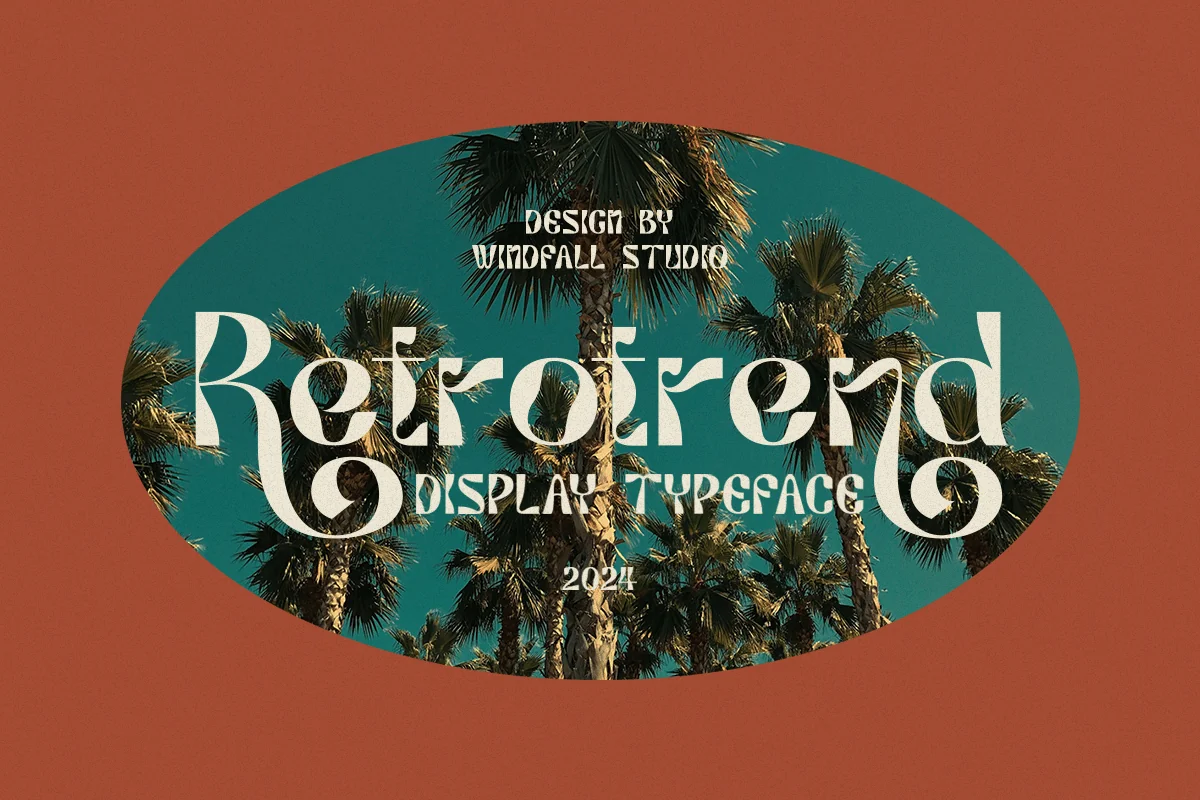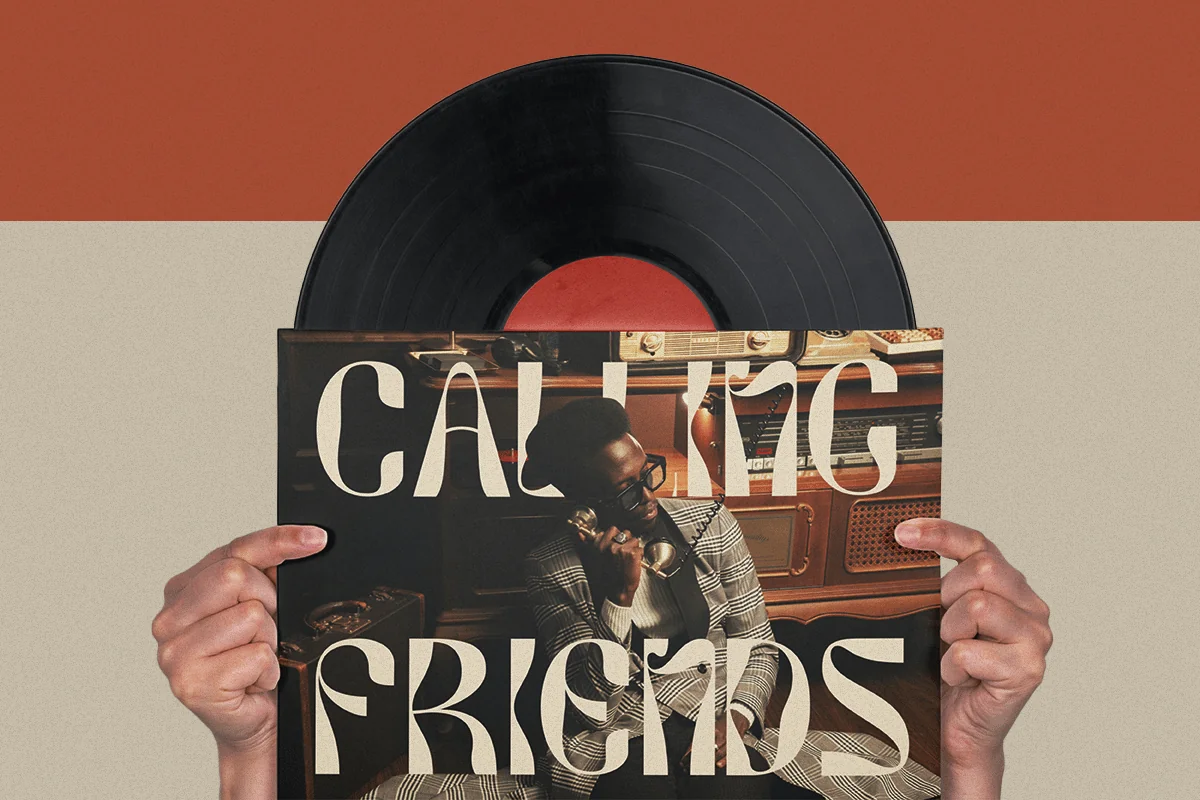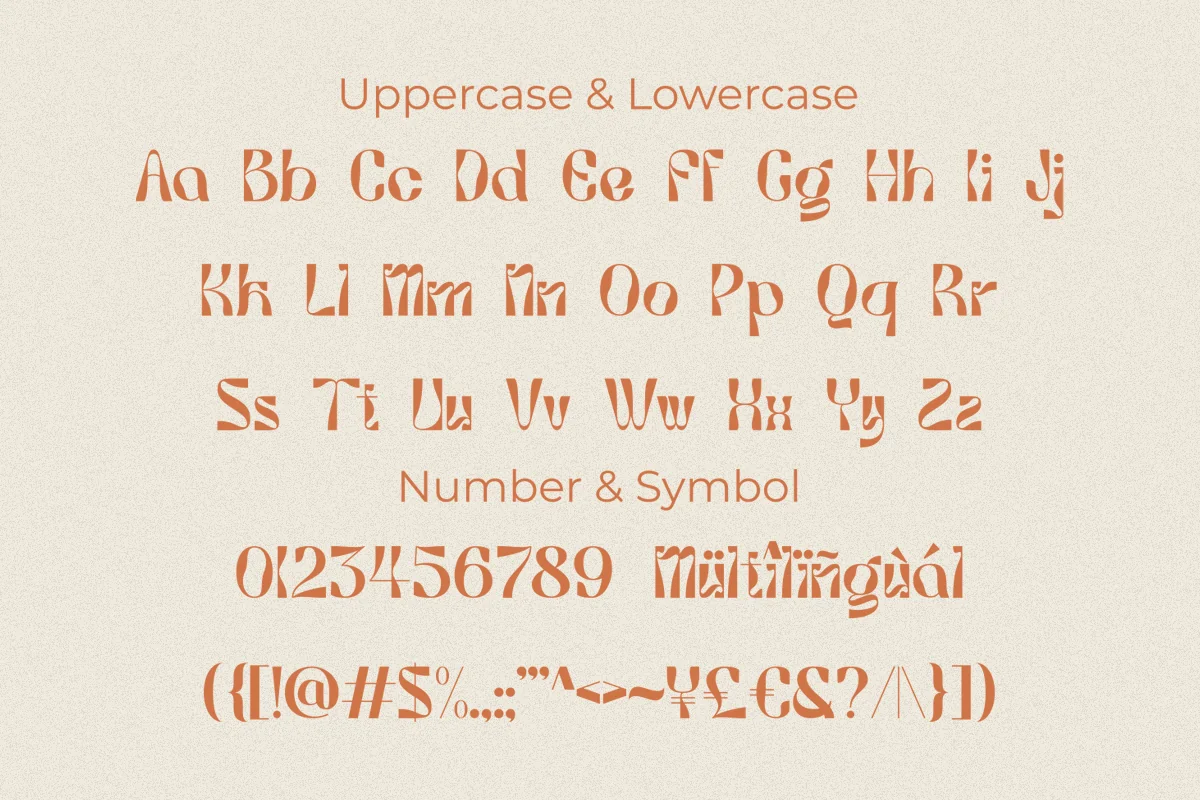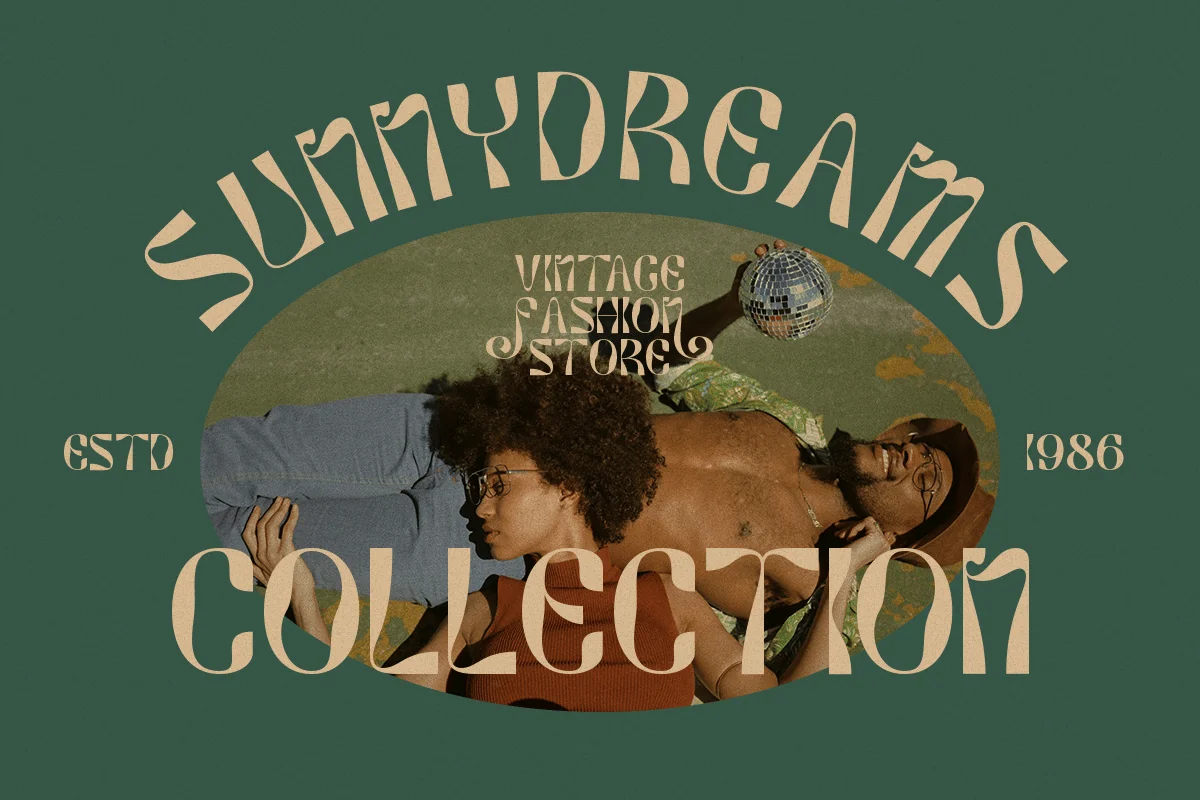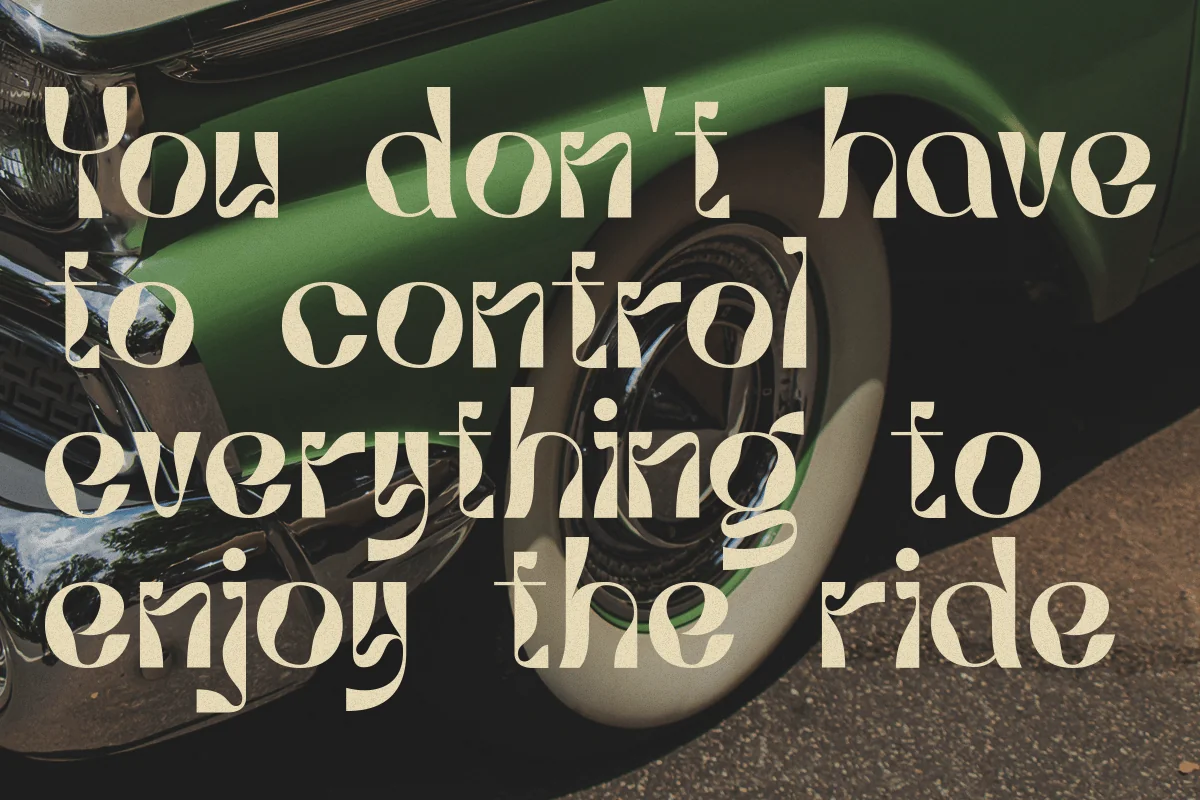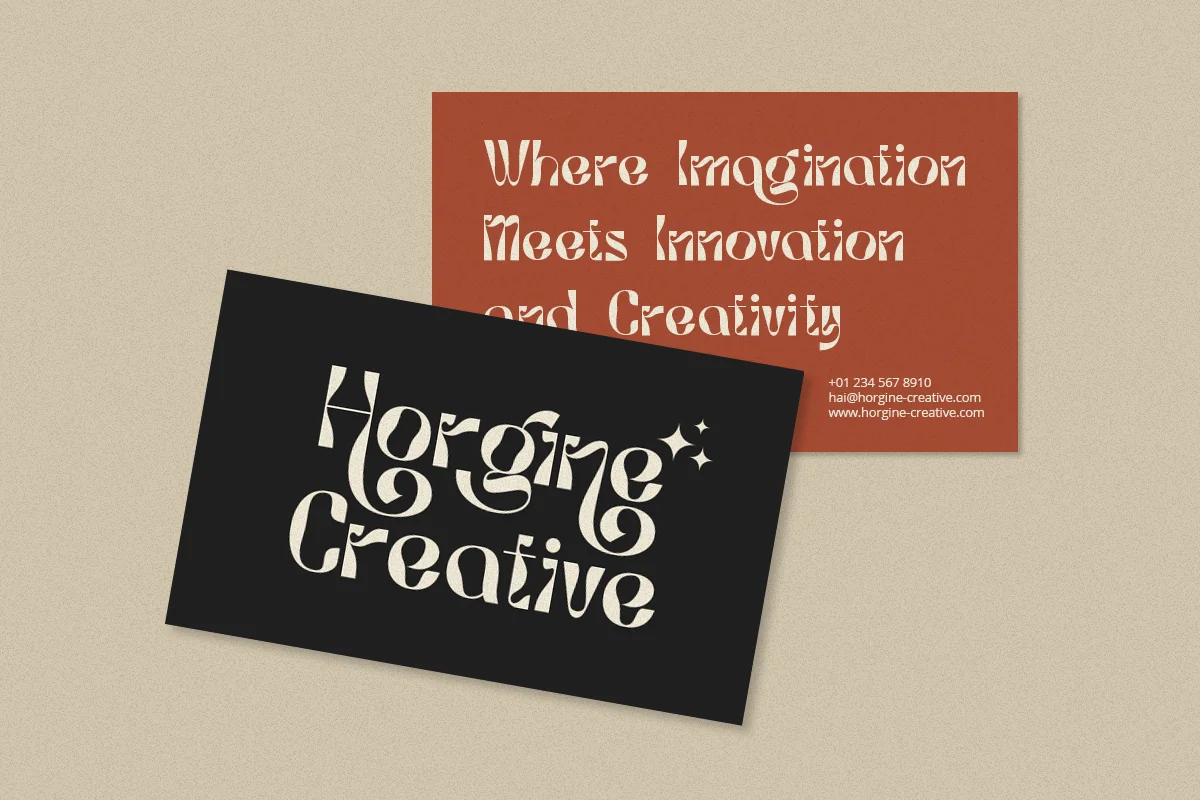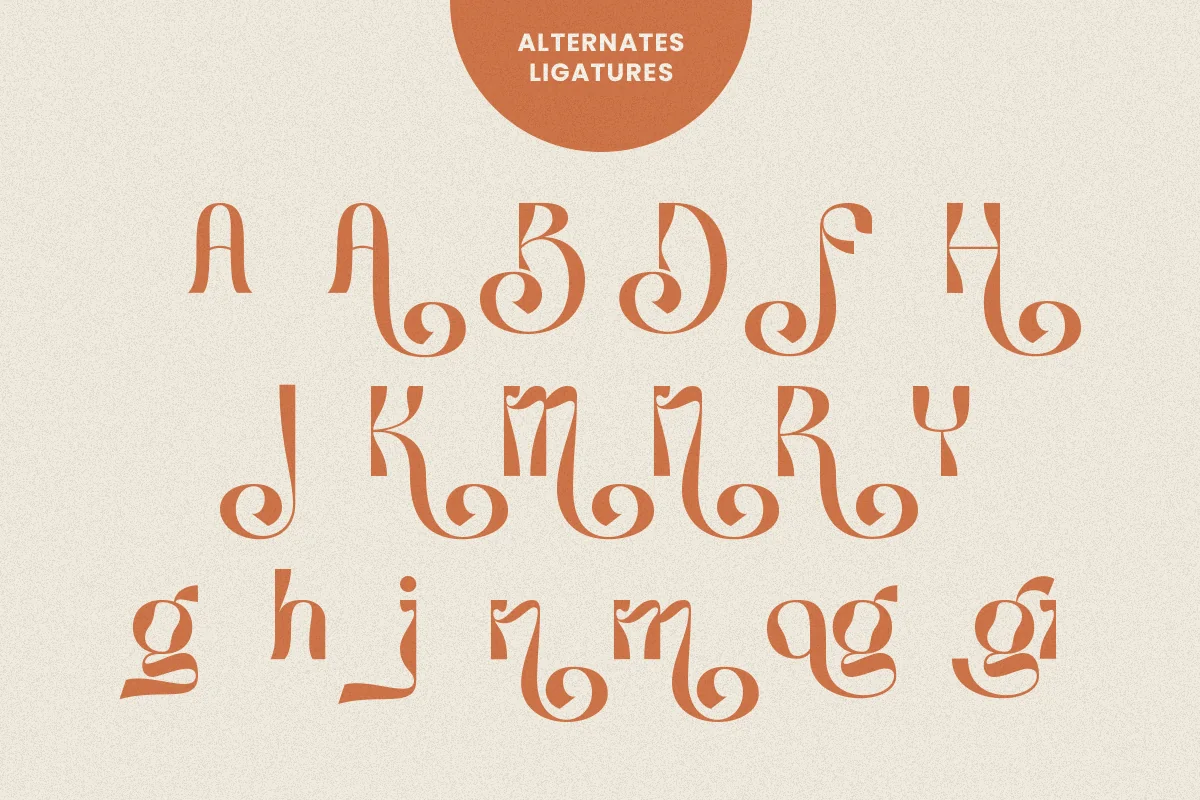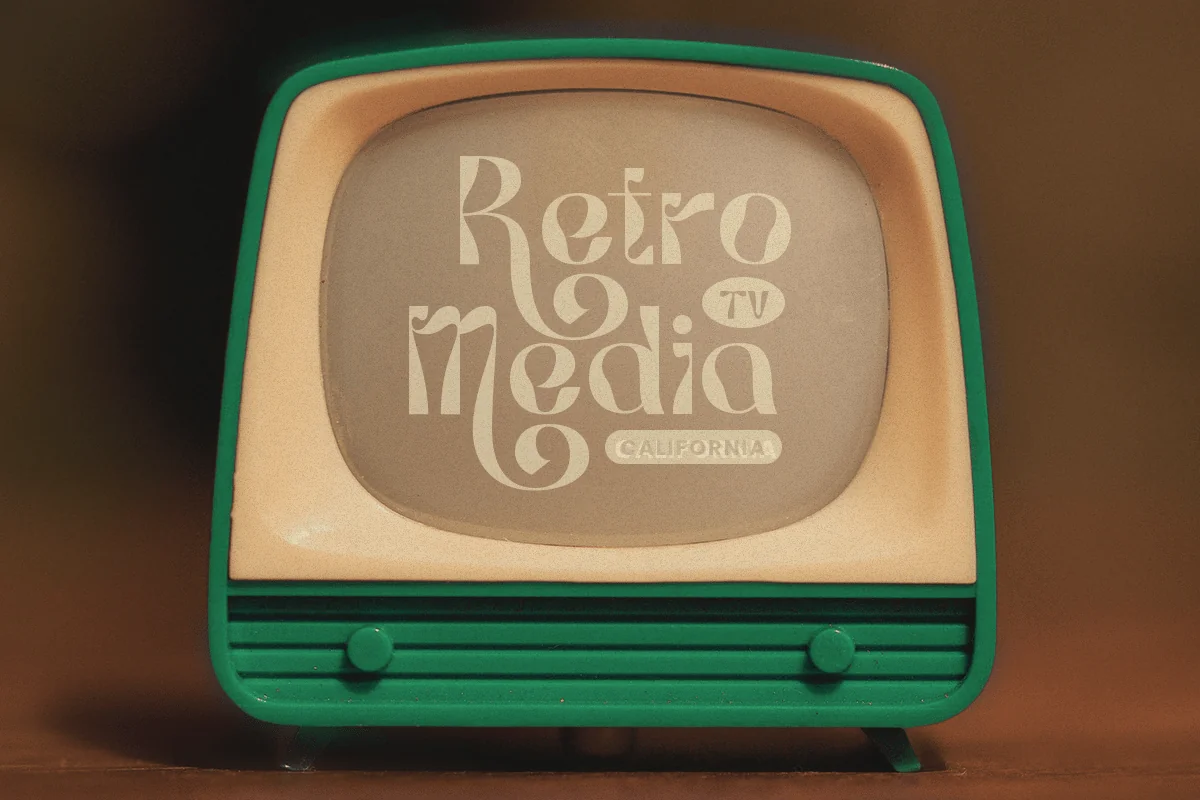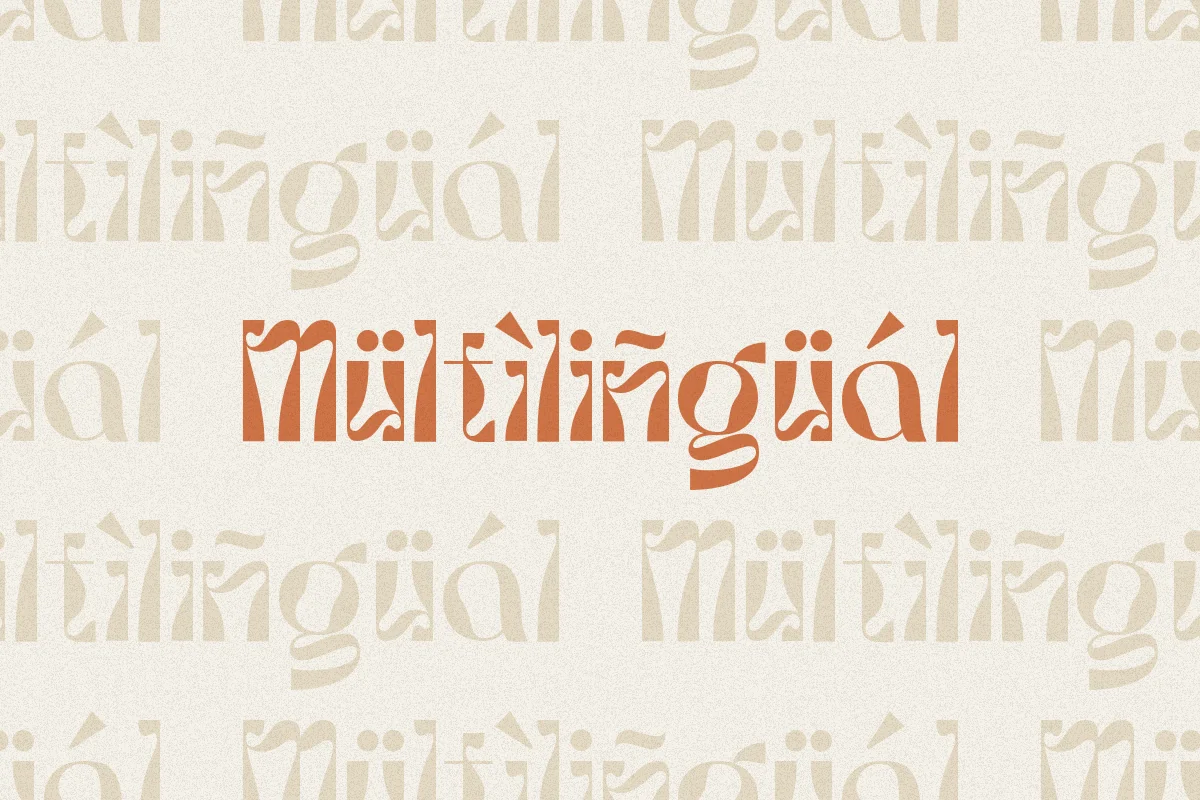
Retrotrend – Tropical Retro Unique Typeface
Retrotrend is a vintage font that combines groovy and psychedelic styles. It is designed to take you back to the nostalgic era of the 80s. Its unique shape provides opportunities for you to use it in various styles, especially in pop art and retro themes. Perfect for jewelry, gym, cinematic, skincare, gold, flower, psychedelic, tropical, organic, beach, artdeco, helvetica, cosmetic, wavy, gotham, movie, christmas font, holiday font, western font, thanksgiving font, cartoon font, comic font, round font, y2k font, poppins font, funky font .
Retrotrend Features:
- Alternates & Ligatures
- Accented characters